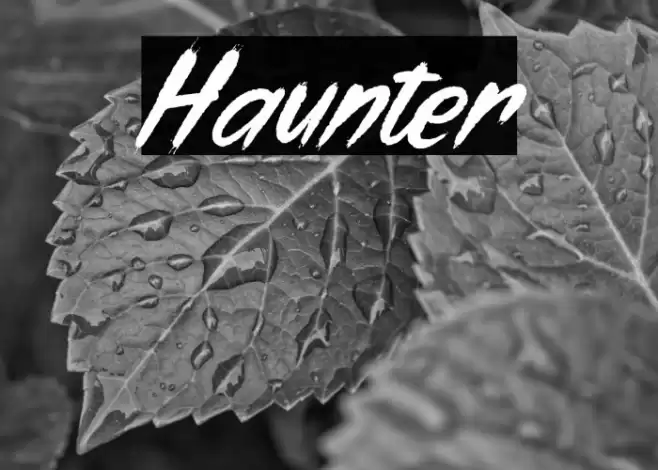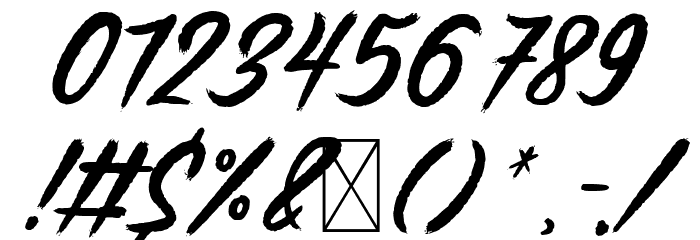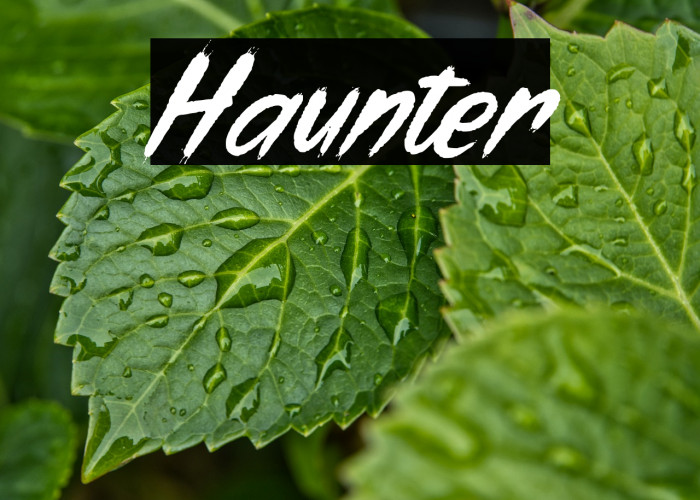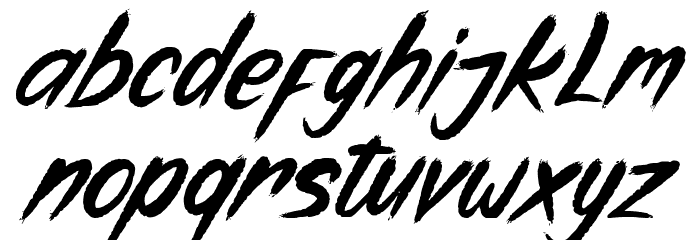
Haunter Font
Haunter Description
This font exudes a bold, energetic style with its brush-like strokes and dynamic slant. Each character is crafted with a sense of movement, giving it a lively and expressive appearance. The uppercase and lowercase letters maintain a consistent flow, while the numbers and special characters complement the overall aesthetic. The font's design is reminiscent of hand-painted signage, with a modern twist that makes it suitable for contemporary projects. Its unique character shapes and bold presence make it ideal for capturing attention and conveying a sense of urgency or excitement.
A bold, brush-style font with dynamic slant and expressive strokes from Decorative fonts.